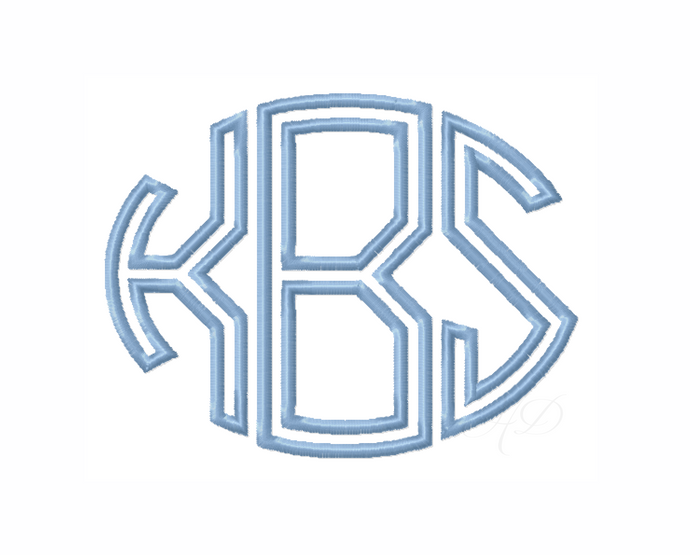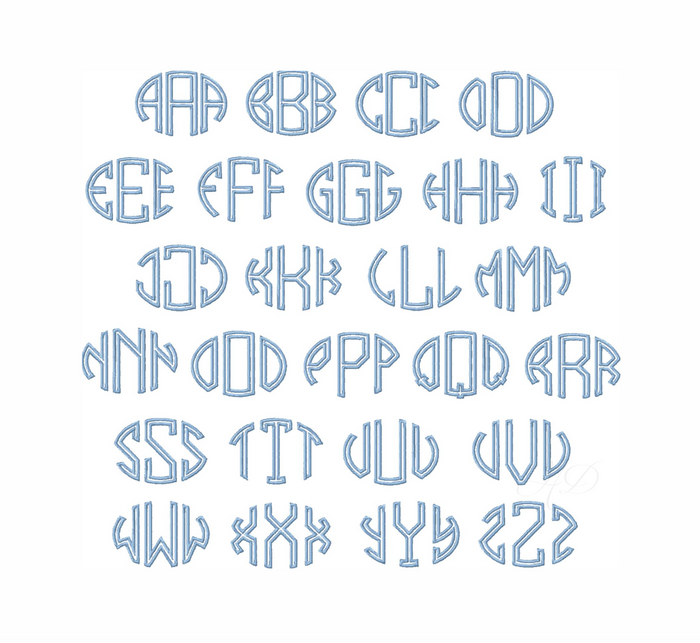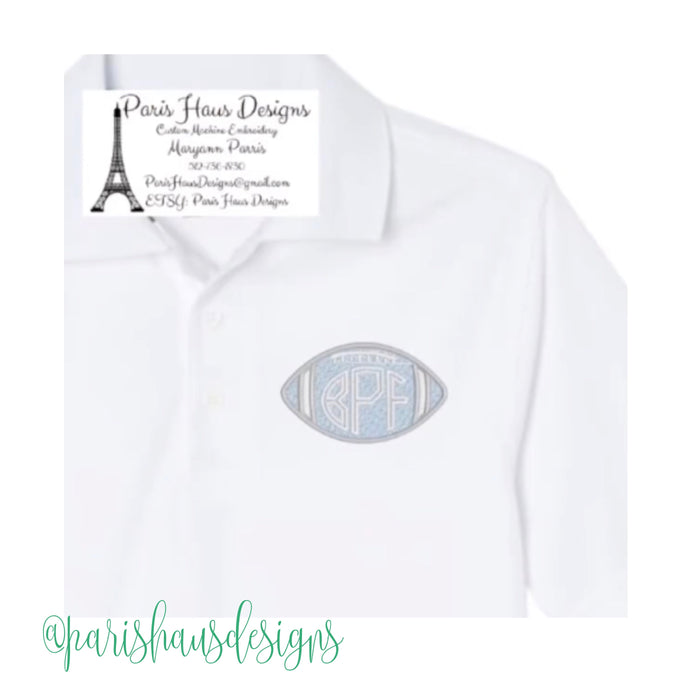
Oval Outline Satin Embroidery Font Package
Unleash your creativity with the Oval Outline Satin Embroidery Font Package! This comprehensive package includes everything you need for your Football Monogram Embroidery Designs, featuring stylish and sophisticated stitching options.
With 78 letters included, you'll receive a complete alphabet set available in varied sizes: 1.25" (for 3" Football Monograms), 1.5" (for 4x4 Monograms), 3" (for 5x7 Monograms), and 4" (for 6x10 Monograms). You can effortlessly create personalized embroideries that elevate your DIY projects.